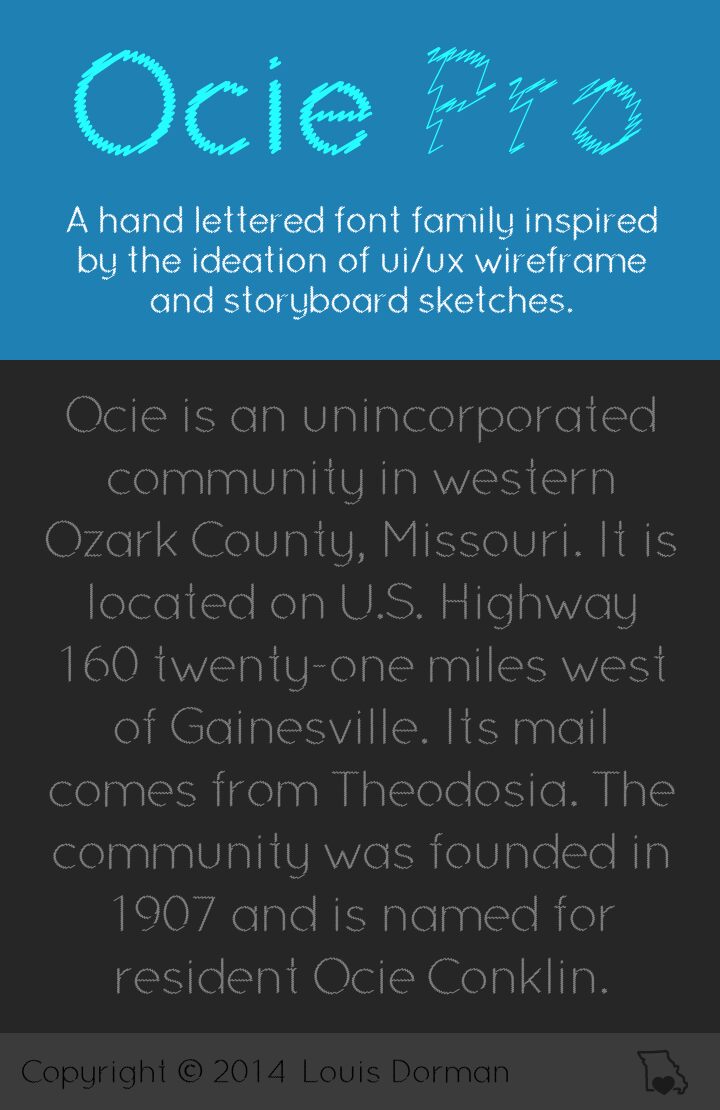
Ocie Light is a captivating hand-lettered font family that draws inspiration from the dynamic world of UI/UX wireframing and storyboard sketching. With its distinct distorted style and light weight, this font exudes a sense of spontaneity and experimentation. The irregular, jagged edges and organic flow of the letterforms imbue the design with a raw, energetic quality, making it an excellent choice for attention-grabbing headlines, bold branding, and expressive typographic compositions.
Ocie Light's versatility allows it to shine in a variety of design applications, from digital interfaces to print materials, where its striking visual presence can effectively convey a sense of innovative ideation and creative exploration.
Ocie Light
Louis Dorman